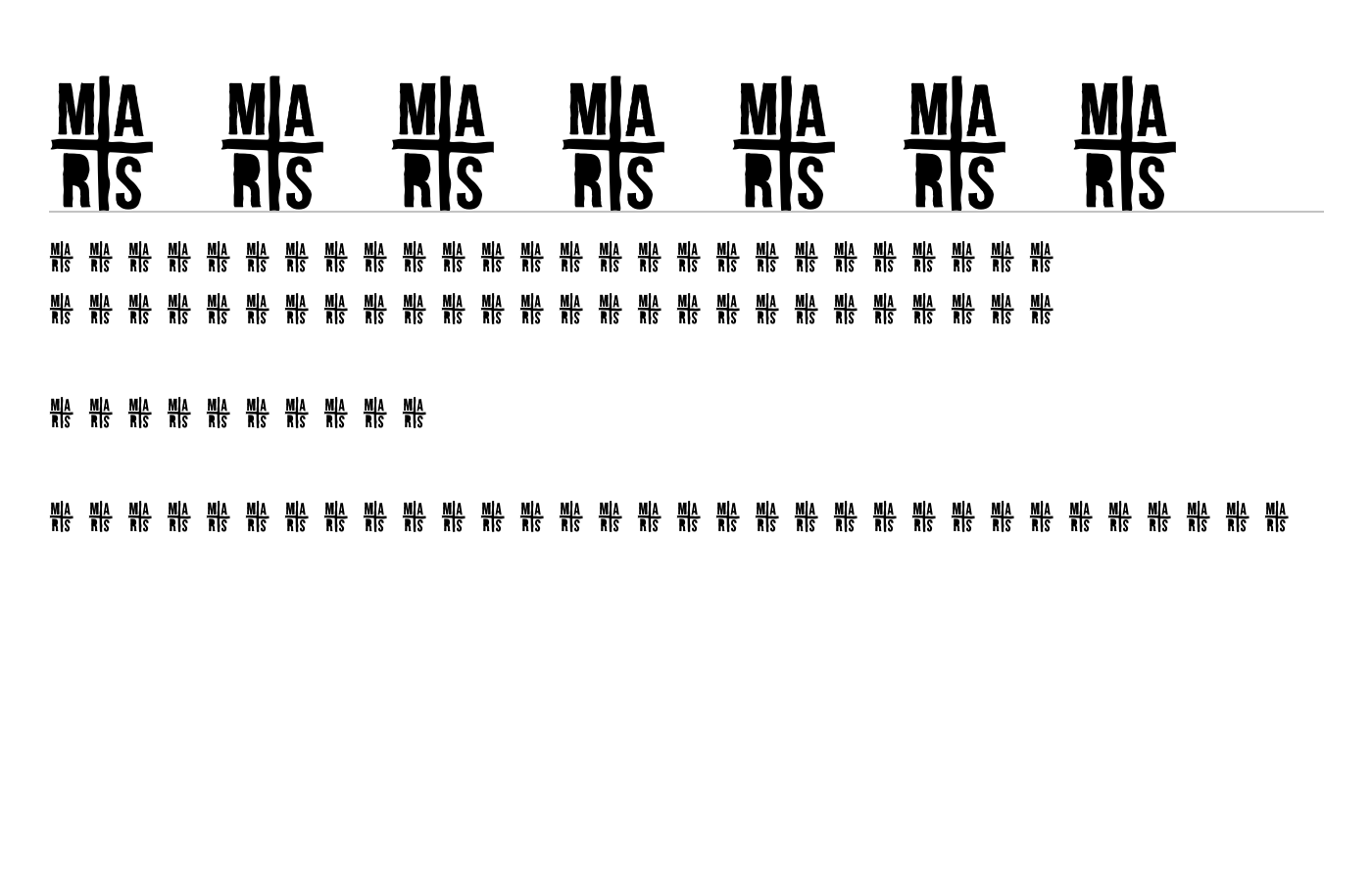
A FOR A Font is a bold, condensed sans serif typeface with a strong, hand-crafted feel. Its irregular, slightly rough edges and tightly packed letterforms create a striking, urban aesthetic that conveys energy and individuality, making it ideal for edgy branding, posters, and headlines where a unique, expressive voice is needed. This font works best in display settings where its distinctive character can shine and grab attention.
A FOR A Font